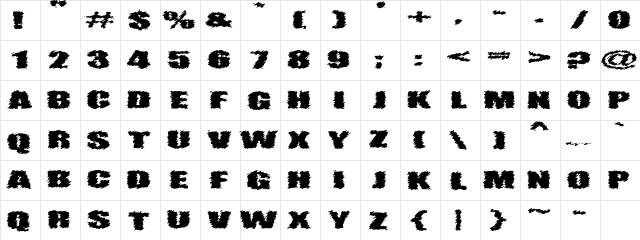
VTC AngoraChik Regular
Design Context for VTC AngoraChik Typeface
VTC AngoraChik is a composed and adaptable typeface that performs quietly and consistently across a wide range of design contexts.
Pro Tip: Use VTC AngoraChik in both headline and body roles to test its range before committing to a single application.